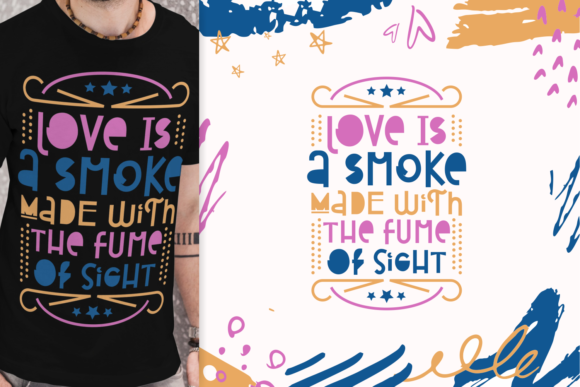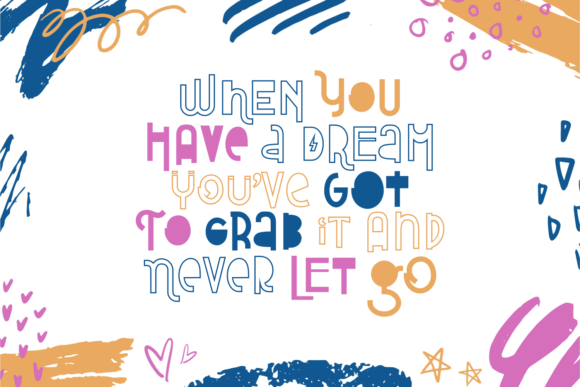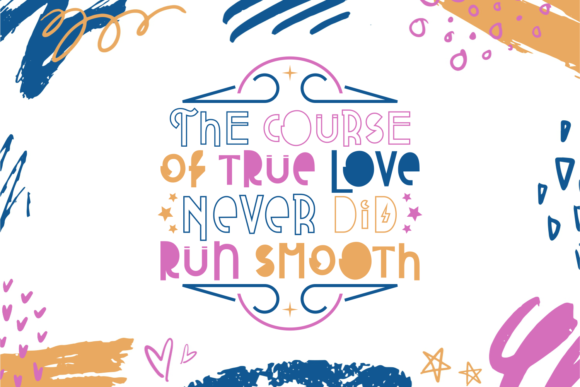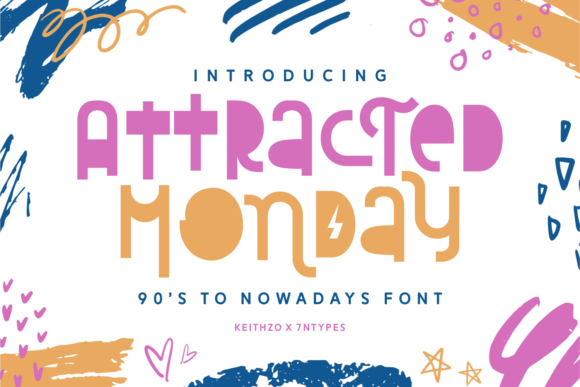
Attracted Monday Font
Attracted Monday is a playful display font. It’s a 90’s to nowadays font with a fun feel yet striking look. Its 4 styles and its good readability makes it perfect for many designing needs.